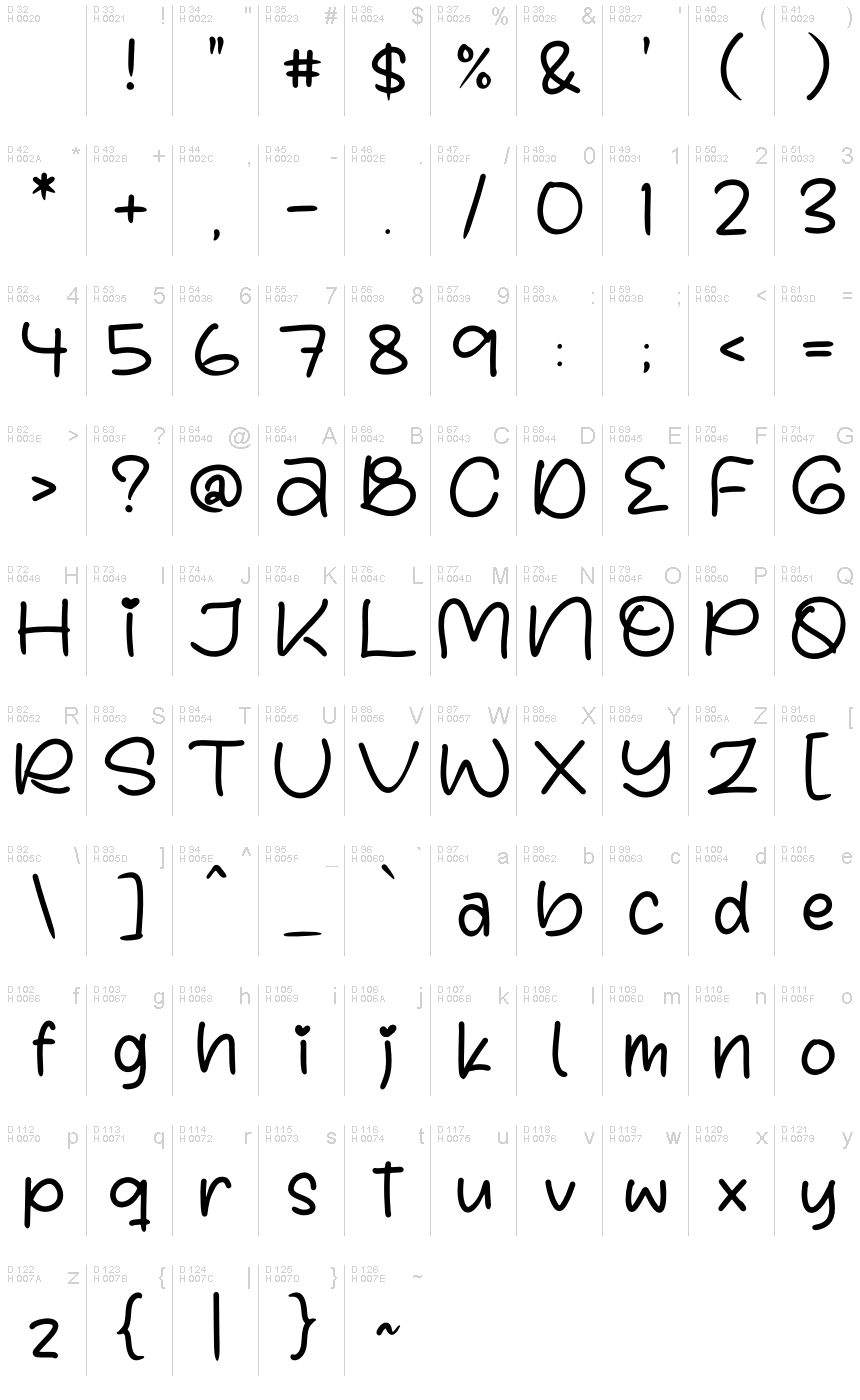
LEMON SUNRISE
Lemon Sunrise emerges as a breath of fresh air in the realm of typography, crafted with care by Perspectype Studio and showcased on Letterena.com. This handwritten font exudes a semi-light weight that gracefully dances across the page, its expanded width offering a sense of openness akin to the first light of dawn. Its aesthetic appeal lies in its blend of casual charm and structured elegance, making it an ideal choice for designers seeking to inject personality into their creations.
The style of Lemon Sunrise is versatile; it can infuse invitations with warmth, give branding materials an approachable vibe, or add a whimsical touch to editorial designs. Its unique characteristics ensure that it stands out in any creative project while maintaining readability and impact. Embrace Lemon Sunrise for your next design endeavor and watch as it brings a gentle yet distinct flare to your work.